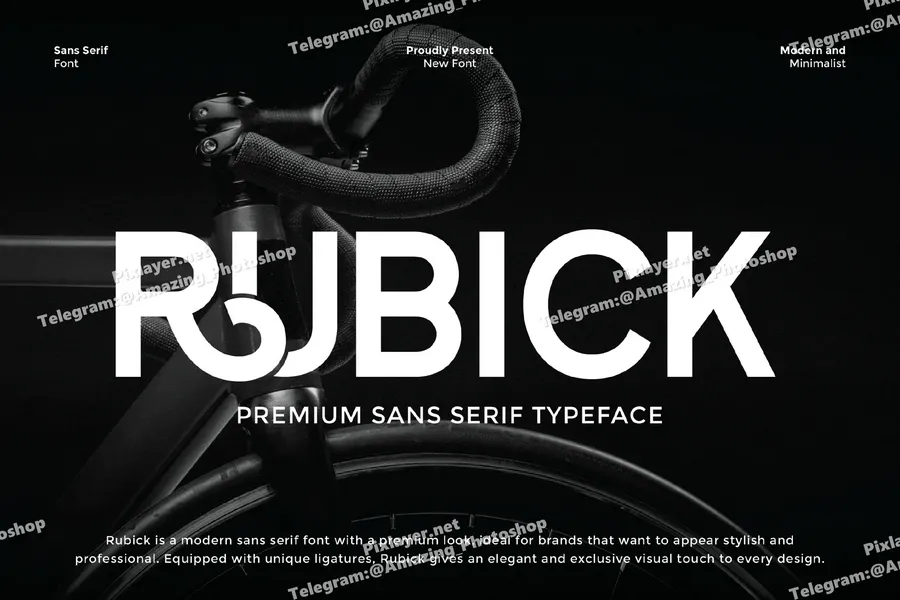
Rubick Fonts
RUBICK is a premium sans serif typeface that exudes modern elegance and refined simplicity. Crafted with clean lines, balanced proportions, and a timeless aesthetic, RUBICK is perfect for brands seeking sophistication and clarity. Ideal for luxury branding, editorials, corporate design, and high-impact headlines — RUBICK delivers a sleek, confident look to every project.
Alternates & Ligatures